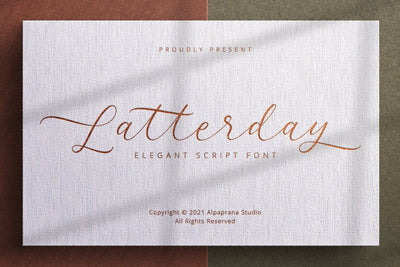
Latterday - Elegant Script Font
Latterday is a stunning elegant style script font with authentic and casual feels. It will be perfectly used for Branding, Logo Design, Lettering, Logotype, Clothing, Poster, magazine, packaging, posters, shopping bags, t-shirts, book covers, photography, special events and other design project.